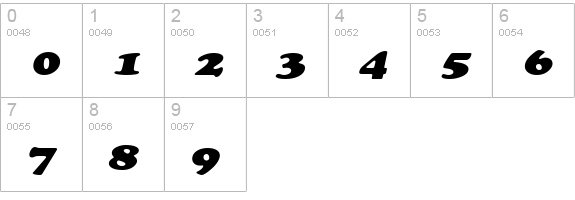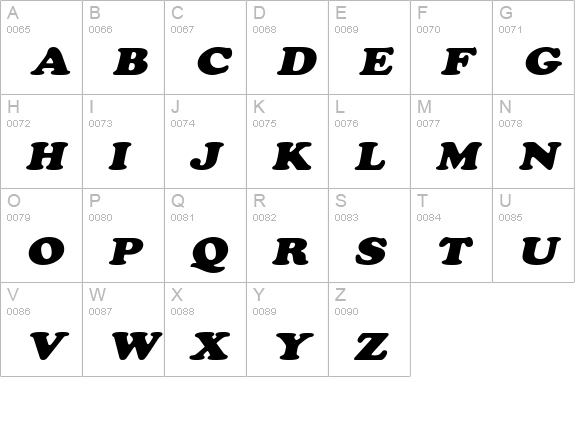
MarshmallowExtended Italic Font Details
MarshmallowExtended Italic is a distinctive, italic variant in the MarshmallowExtended typeface family \xE2\x80\x94 well suited to design and typography projects.
MarshmallowExtended Italic is a stunning and versatile font that exudes a sense of elegance and sophistication. Its sleek and slanted design adds a touch of modernity to any project, making it perfect for both professional and creative endeavors. With its elongated letterforms and delicate curves, this font brings a unique and captivating aesthetic to any text. One of the most enticing aspects of MarshmallowExtended Italic is that it is completely free to download. You can easily find and access this font on FontsMarket.com, a reliable and reputable source for high-quality fonts. This means that you can enhance your design projects without any additional cost, making it an excellent choice for budget-conscious individuals. Whether you're designing a logo, creating eye-catching headlines, or crafting beautiful typographic compositions, MarshmallowExtended Italic offers a myriad of possibilities. Its italicized style adds a touch of flair and character, effortlessly drawing attention and leaving a lasting impression. The versatility of MarshmallowExtended Italic is truly remarkable. It seamlessly blends into a wide range of design styles and themes, from contemporary and minimalist to elegant and luxurious. This font can adapt to various mediums, including print and digital, ensuring that your message is conveyed with utmost clarity and impact. MarshmallowExtended Italic is meticulously crafted with precision and attention to detail. Each letter is thoughtfully designed to create a harmonious and visually appealing composition, resulting in a font that is both pleasing to the eye and easy to read. Its legibility remains intact even at smaller sizes, ensuring that your message is conveyed effortlessly across different platforms. In conclusion, MarshmallowExtended Italic is an exceptional font that combines elegance, versatility, and affordability. With its captivating design and free availability at FontsMarket.com, it is a valuable asset for designers, creatives, and anyone seeking to elevate their projects to the next level. Embark on a typographic journey with MarshmallowExtended Italic and unlock a world of possibilities for your design endeavors.